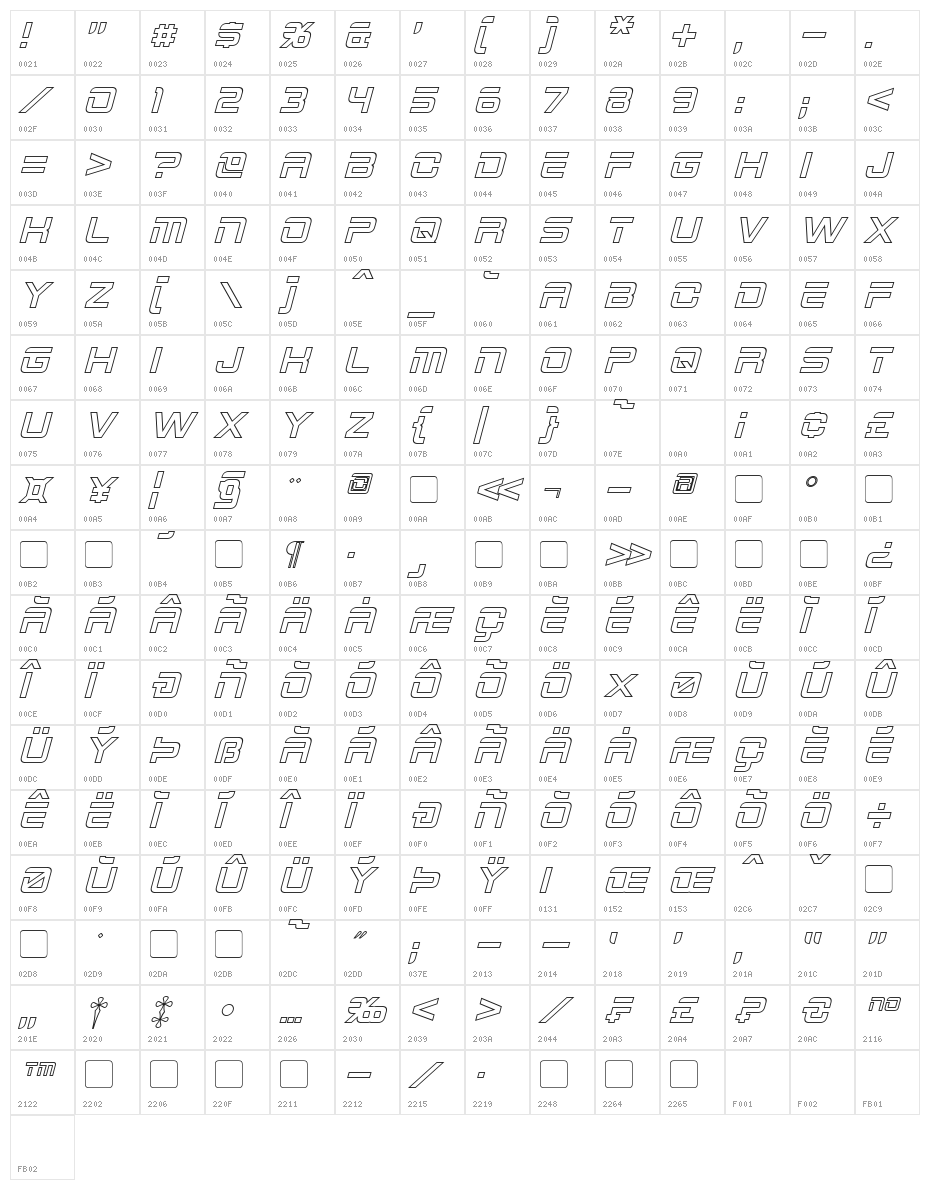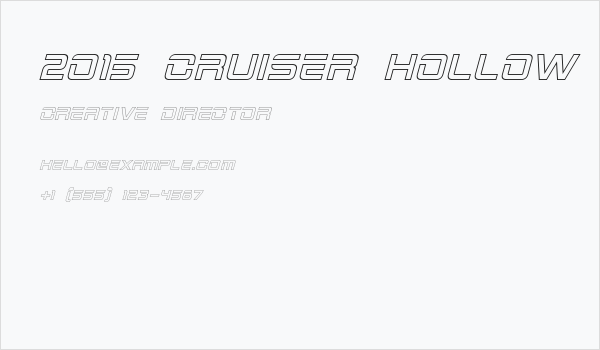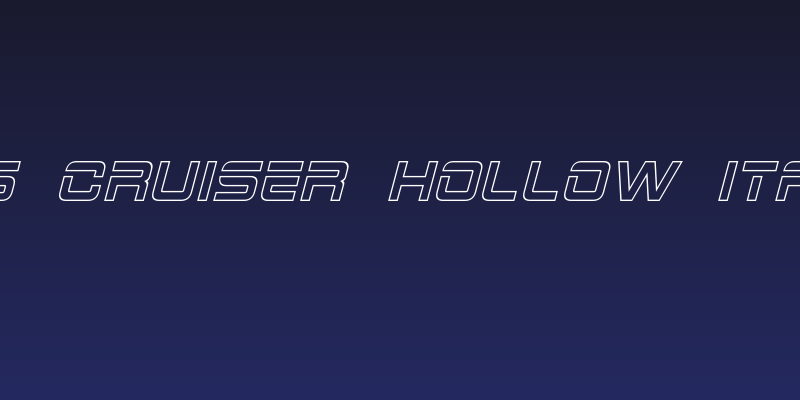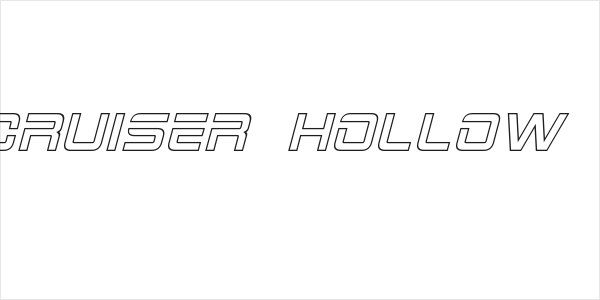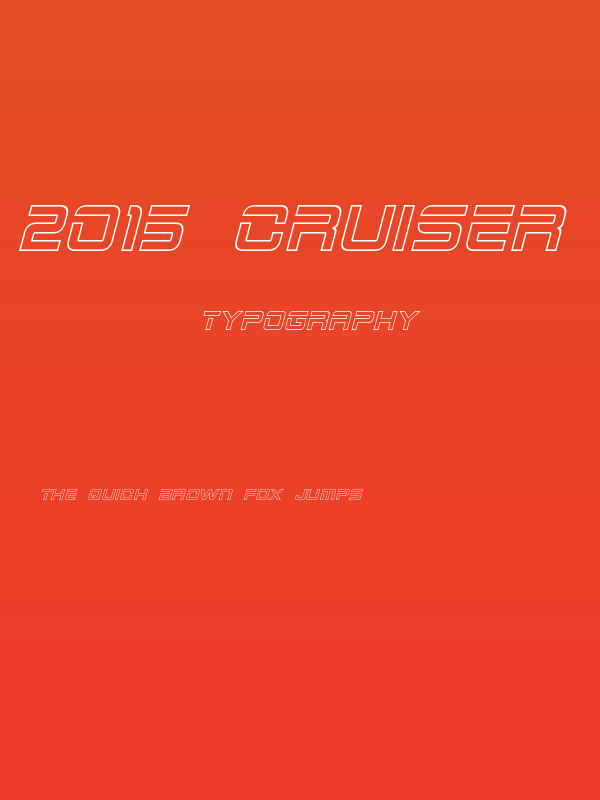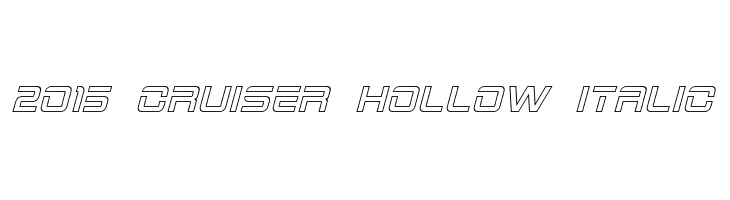
2015 Cruiser Hollow Italic Font
2015 Cruiser Hollow Italic Description
This font features a modern, hollow design with a distinct italic slant, giving it a dynamic and futuristic appearance. The uppercase and lowercase letters are consistent in style, with clean lines and geometric shapes that create a sense of movement. The numerals and special characters maintain the same aesthetic, ensuring a cohesive look across all text. The hollow nature of the font adds a unique twist, making it stand out in any design. Its sleek and angular form is perfect for projects that require a contemporary and innovative touch.
| Use Case | Logos, Headlines, Posters |
| Proposed Projects | Ideal for technology branding, futuristic posters, and modern web design. |